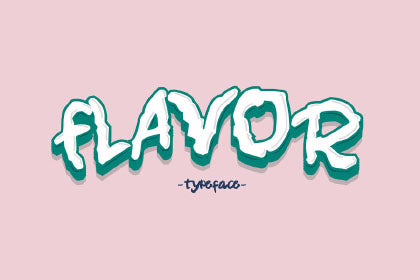
Free Flavor Handmade Typeface
Featuring a free flavor handmade typeface. Free Design Resources has created this amazing and beautiful font. Amaze your fellow designers and create stunning designs with this fancy font.